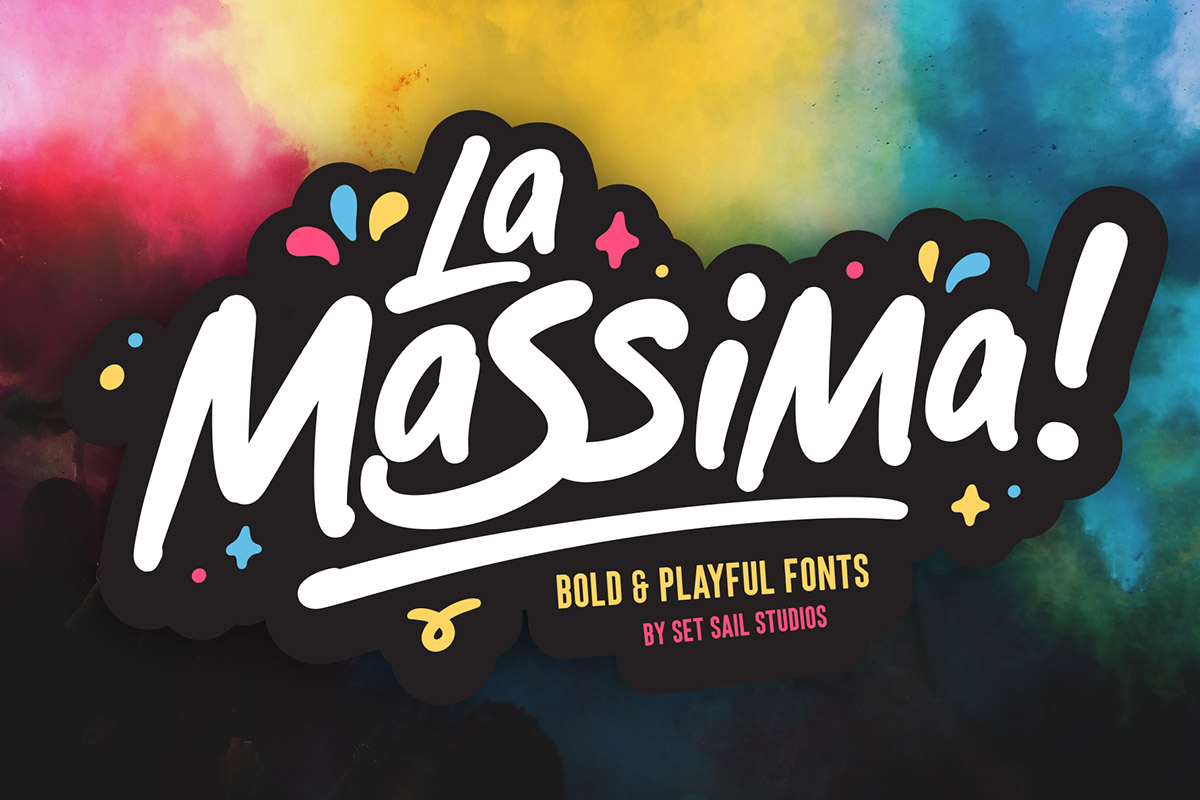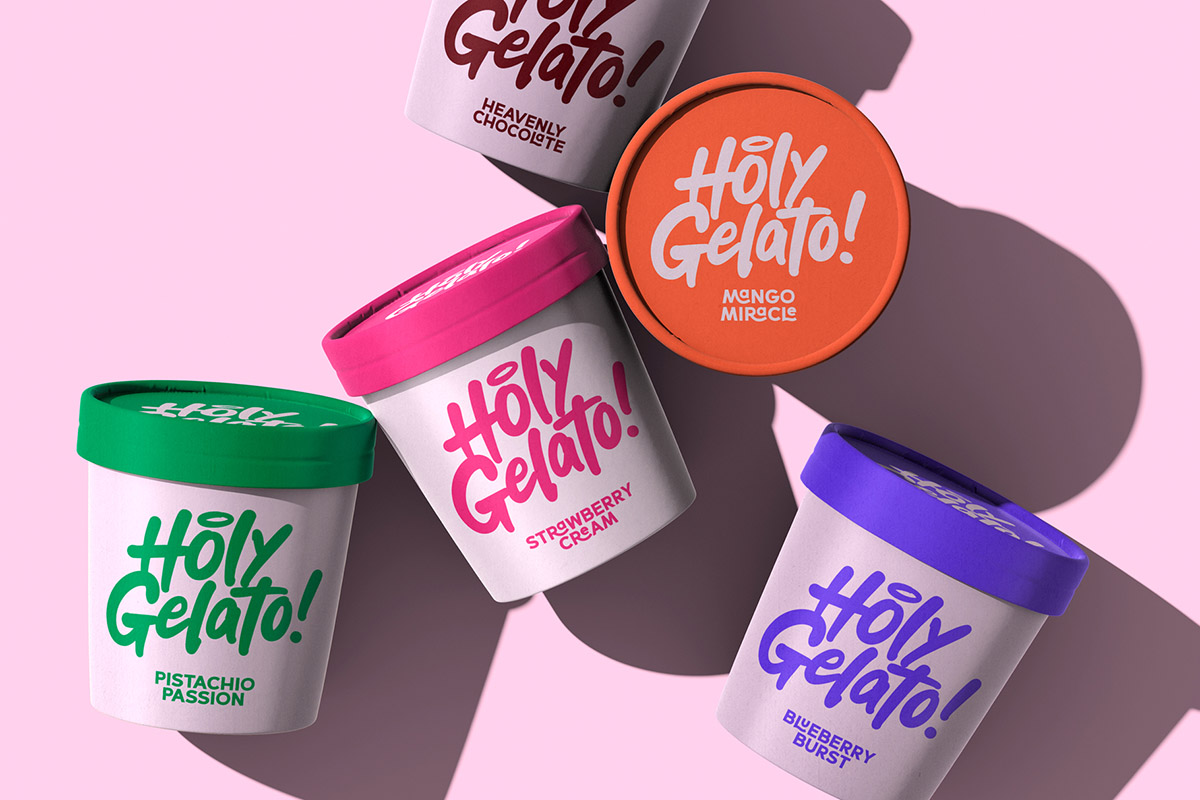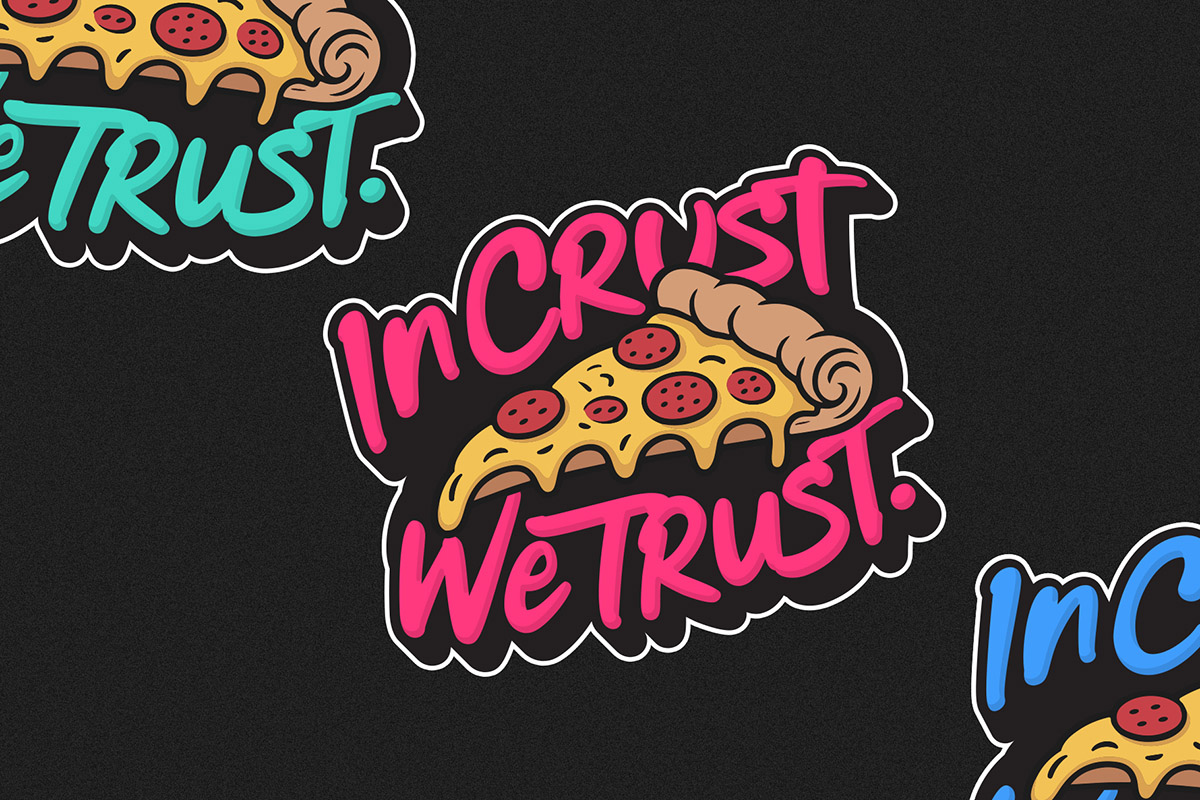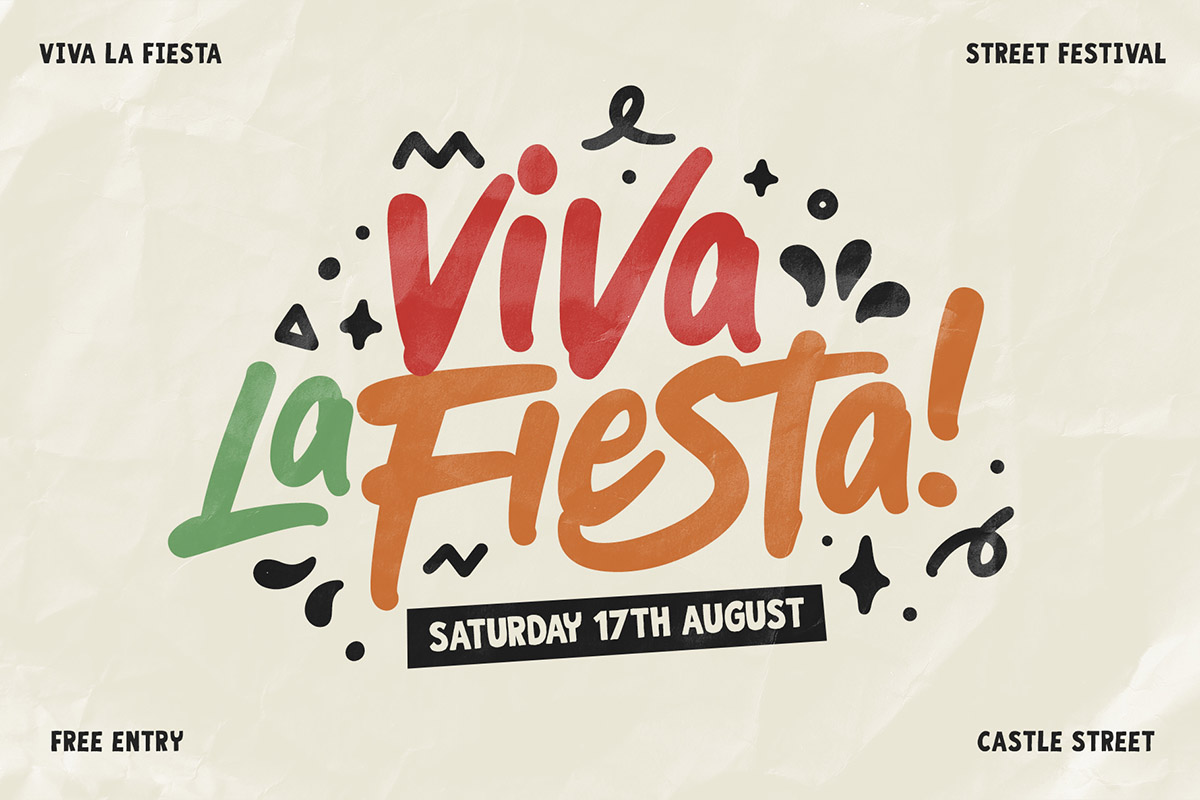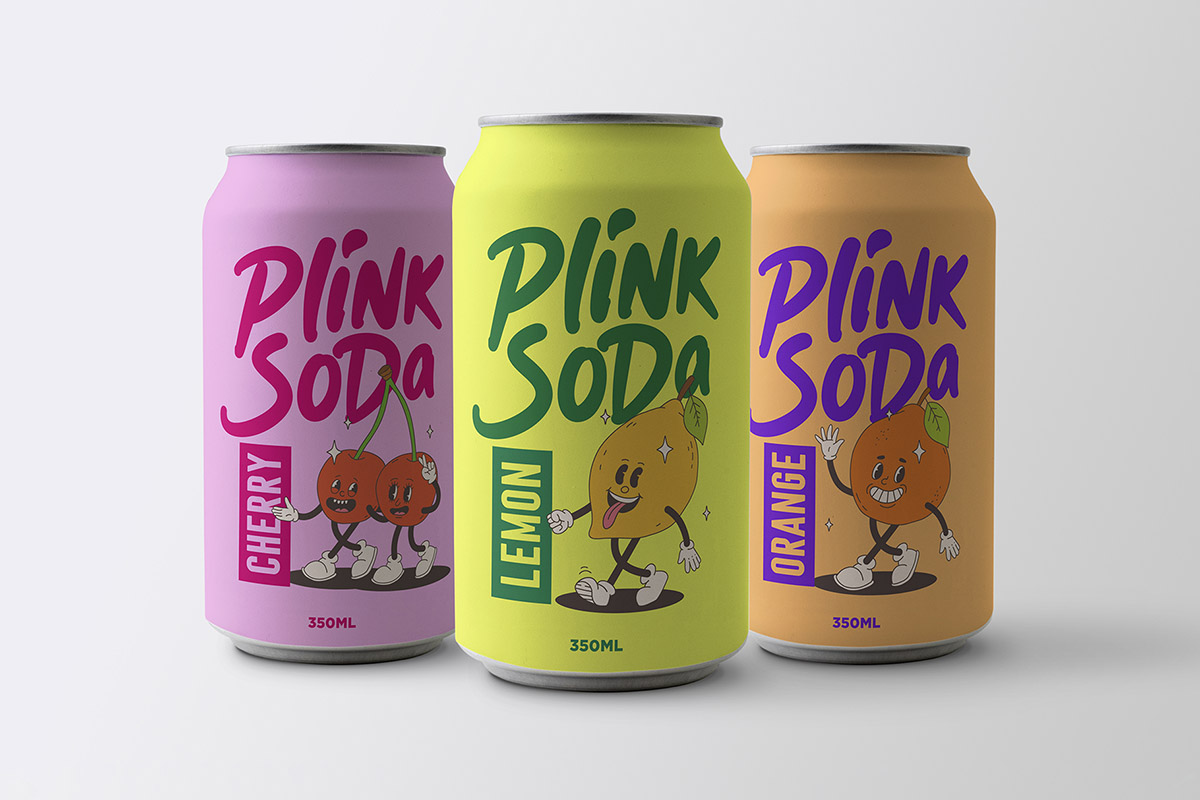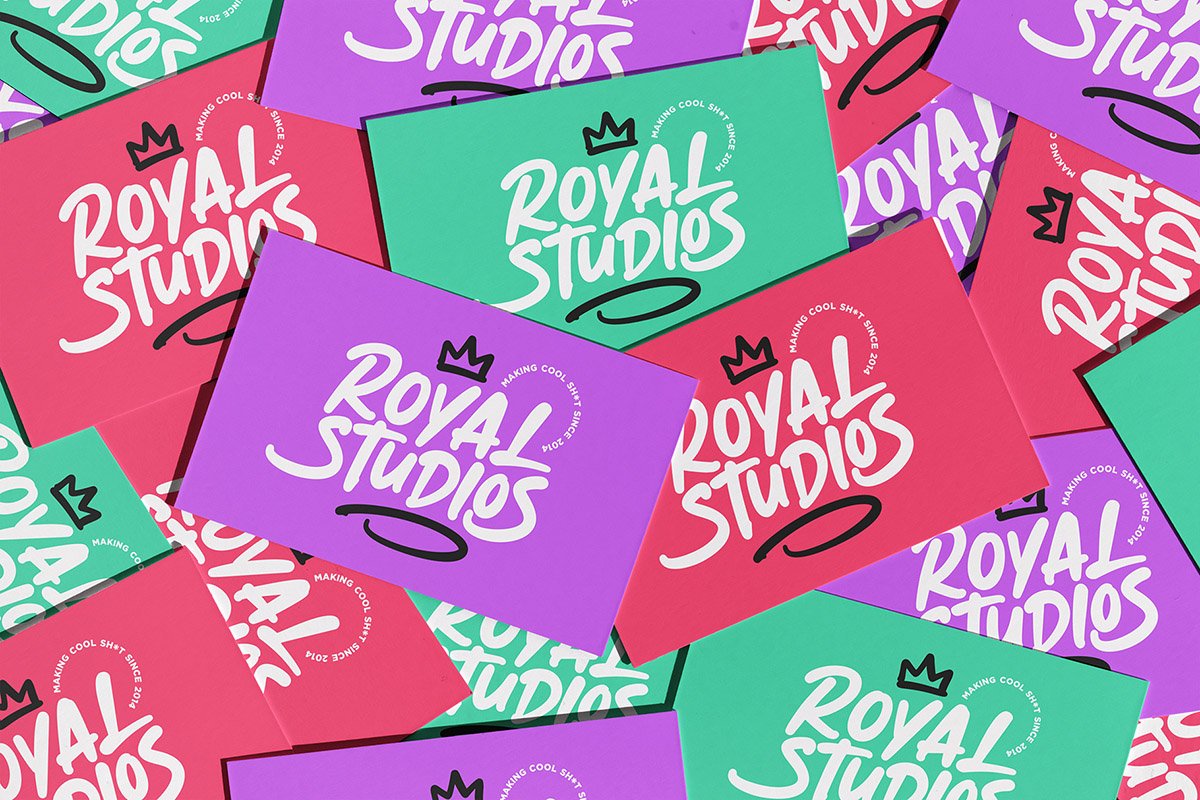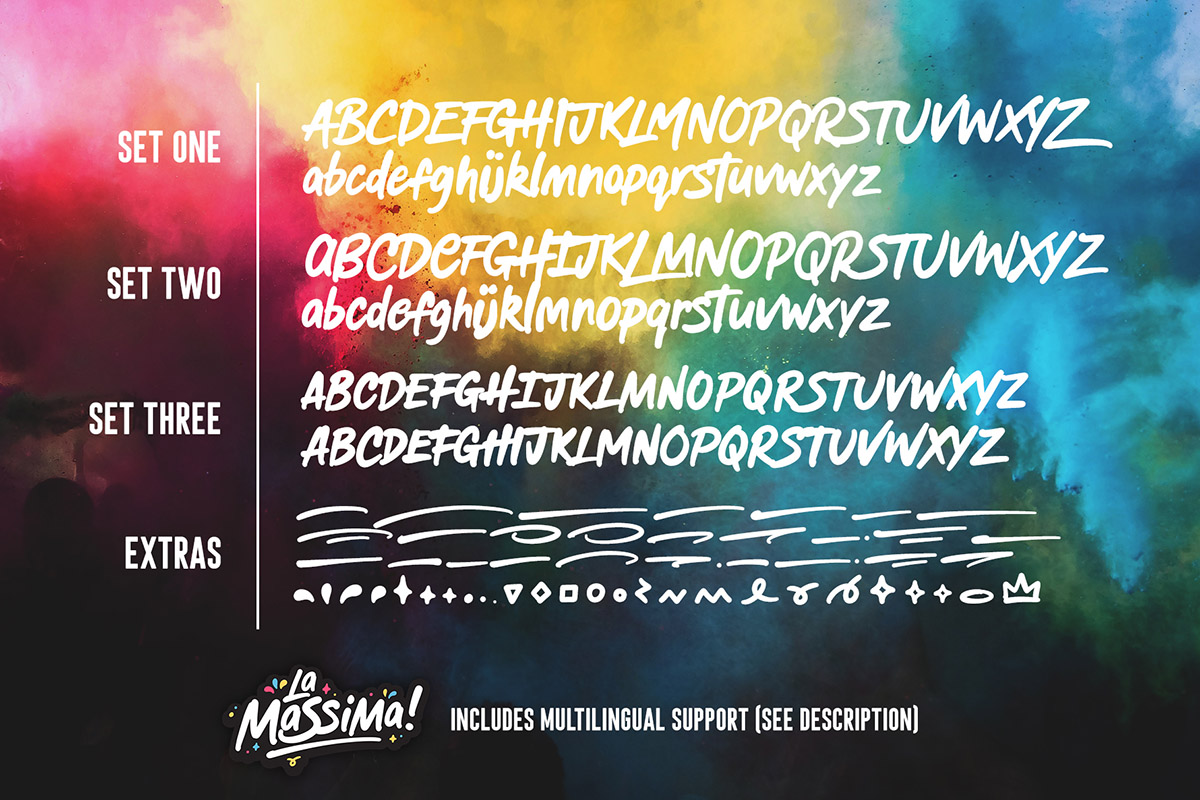
Add some fun energy to your designs with La Massima! A set of 4 bold hand-drawn fonts, designed to create natural, free-flowing and playful typography. Perfect for vibrant branding, product packaging, and head-turning display text. The great thing about this set is how easy it is to create totally custom looking type layouts – this is achieved by having two extra alternate sets of letters beyond the regular font (giving you 6 variations of each letter – mixable sets of 3 lowercase and 3 uppercase), as well as a bonus extras font containing 52 playful underline-swashes and doodles. Here’s a closer look at what’s included;
La Massima One • A clean & energetic hand-drawn font, includes a full set of uppercase, lowercase, numerals and punctuation.
La Massima Two • This is an alternative version of La Massima One, with a completely new set of upper & lowercase characters.
La Massima Three • A third set of characters based on the original font, containing 2 full sets of small-caps characters. Turn caps lock on & off to switch between the 2 variations.
✨Pro Tip! If you really want your font to look custom drawn, try mixing up letters from all 3 of the font sets in the same word, both upper and lowercase. Vary the sizes and try individually placing each letter to give it a more unique layout!
La Massima Extras • Simply install this as it’s own font and type any character to generate 1 of 52 fun underline swashes (A-Z) and doodles (a-z). A great way to add a little extra flair and customisation to your La Massima text.